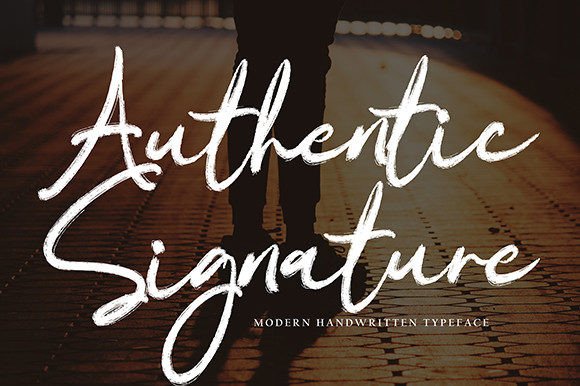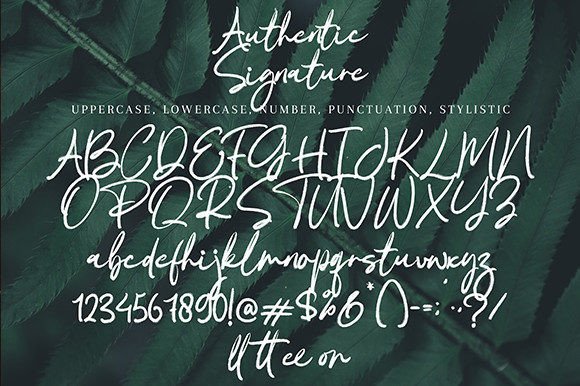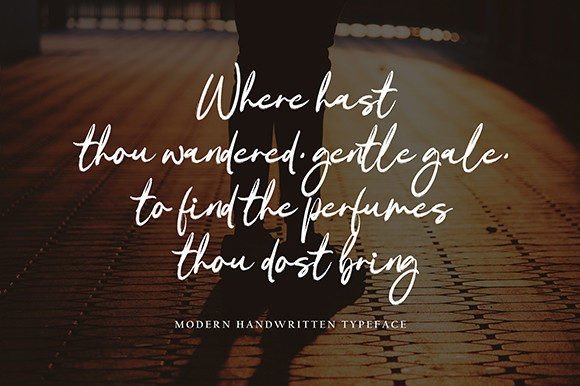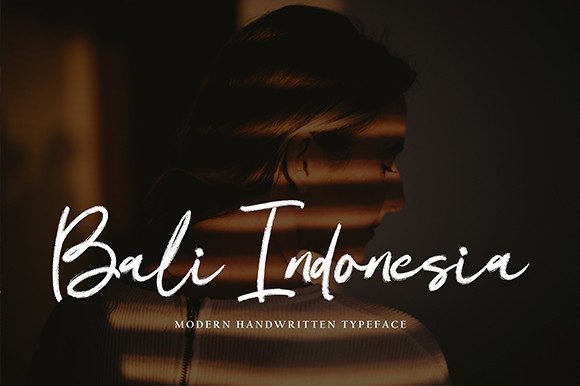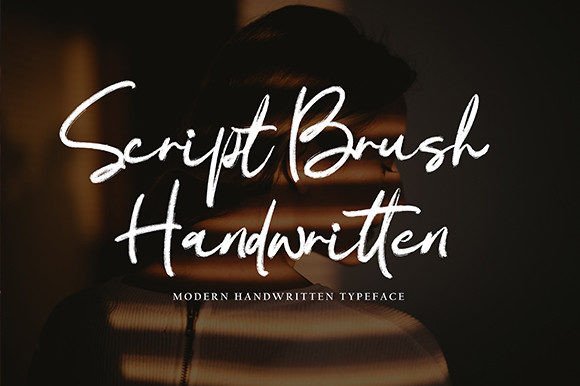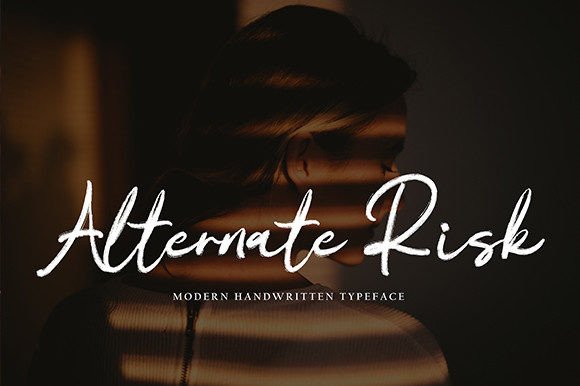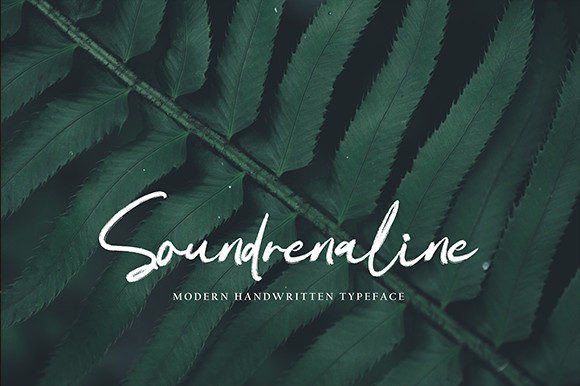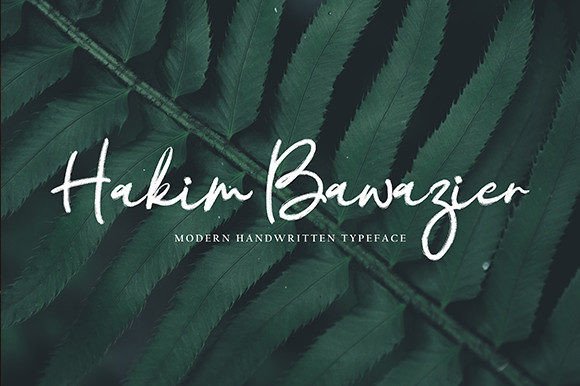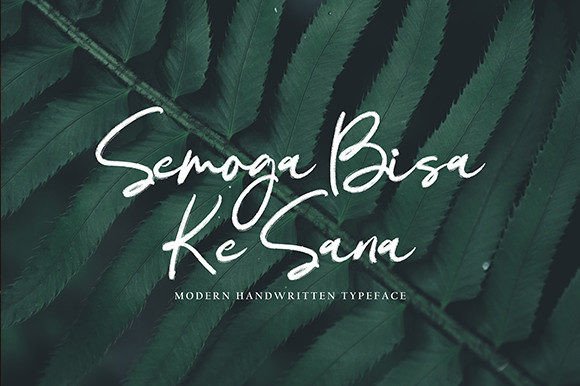
Signature Authentic Font
About Signature Authentic Font
Signature Authentic is a stylish handwritten brush font designed to make a statement. With its modern look and natural flow, this font helps you create designs that feel confident, unique, and full of personality. Whether you’re working on logos, packaging, or social media content, Signature Authentic will help you stand out.
A Modern Handwritten Look
This font combines the energy of a brush stroke with the clarity of modern typography. Each letter feels spontaneous but controlled, striking the perfect balance between casual and professional.
Signature Authentic’s smooth curves and natural movement make it feel like genuine handwriting. The result is a clean, confident look that feels approachable yet refined.
Perfect for Many Design Projects
Signature Authentic is a versatile font that adapts easily to different creative needs. You can use it for:
• Logos and Branding: Give your business a bold, stylish identity.
• Social Media Graphics: Create attention-grabbing posts and stories.
• Product Packaging: Make labels and packaging feel handcrafted.
• Invitations: Add a modern touch to wedding or event invites.
• Business Cards: Stand out with signature-style typography.
• Posters and Flyers: Share your message with confidence and style.
• Quotes and Wall Art: Highlight inspiring words with beautiful brush strokes.
No matter where you use it, Signature Authentic brings a unique handwritten charm.
If you want to enhance your design further, consider pairing it with a clean sans serif font. This combination balances Signature Authentic’s expressive style and creates a polished, modern look.
• Use Large Sizes: Show off the details of the brush strokes.
• Highlight Key Words: Create contrast in headlines or quotes.
• Pair Thoughtfully: Combine with minimalist fonts to let Signature Authentic shine.
Make Your Designs Authentic
Signature Authentic isn’t just a font—it’s a design tool that helps you express ideas with confidence and style. Whether you want to convey elegance, creativity, or a personal touch, this font helps you connect with your audience.
Its versatile style fits a wide range of projects, from modern branding to casual invitations. If you want your designs to feel fresh, modern, and authentic, Signature Authentic is the perfect choice.